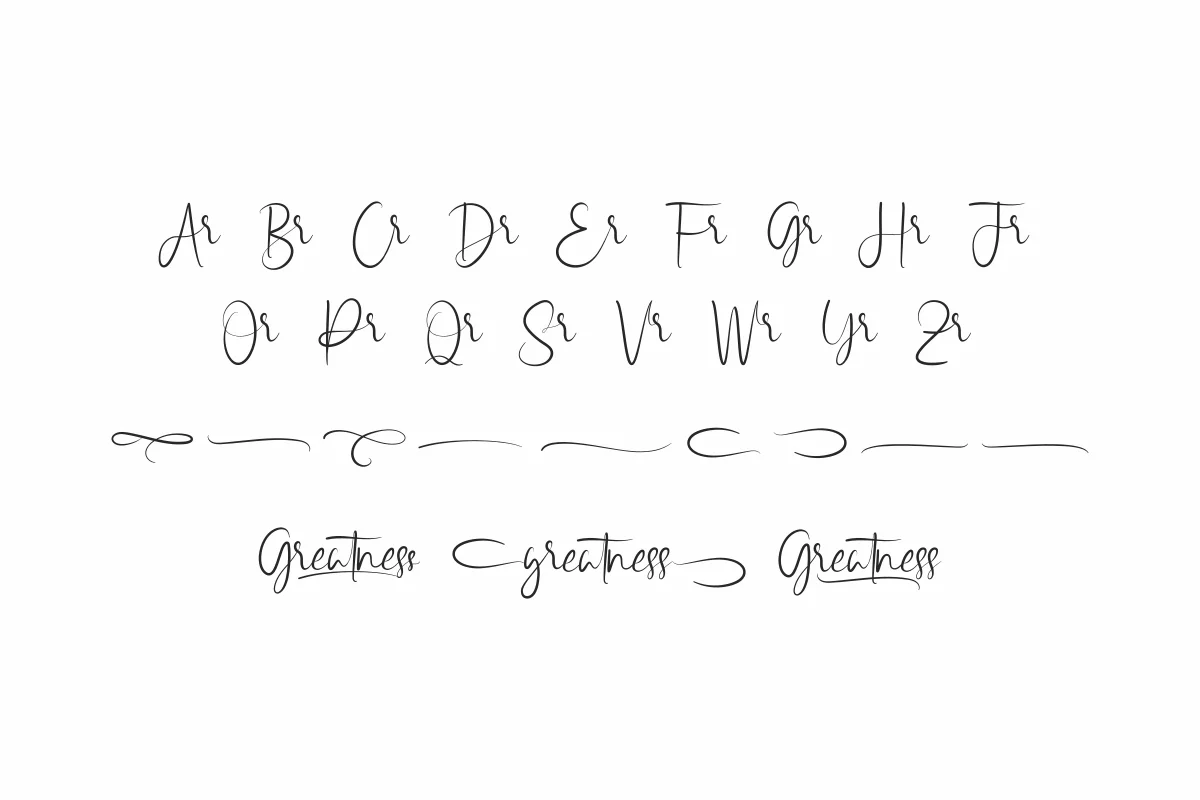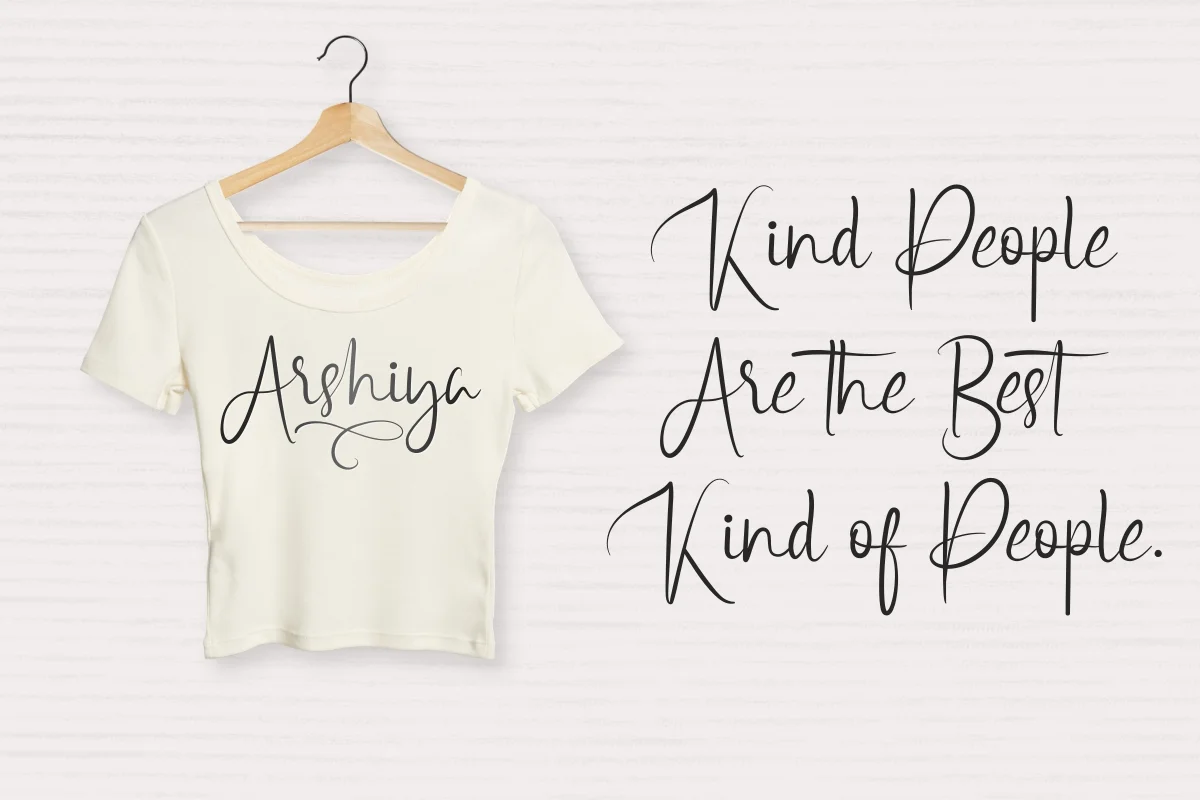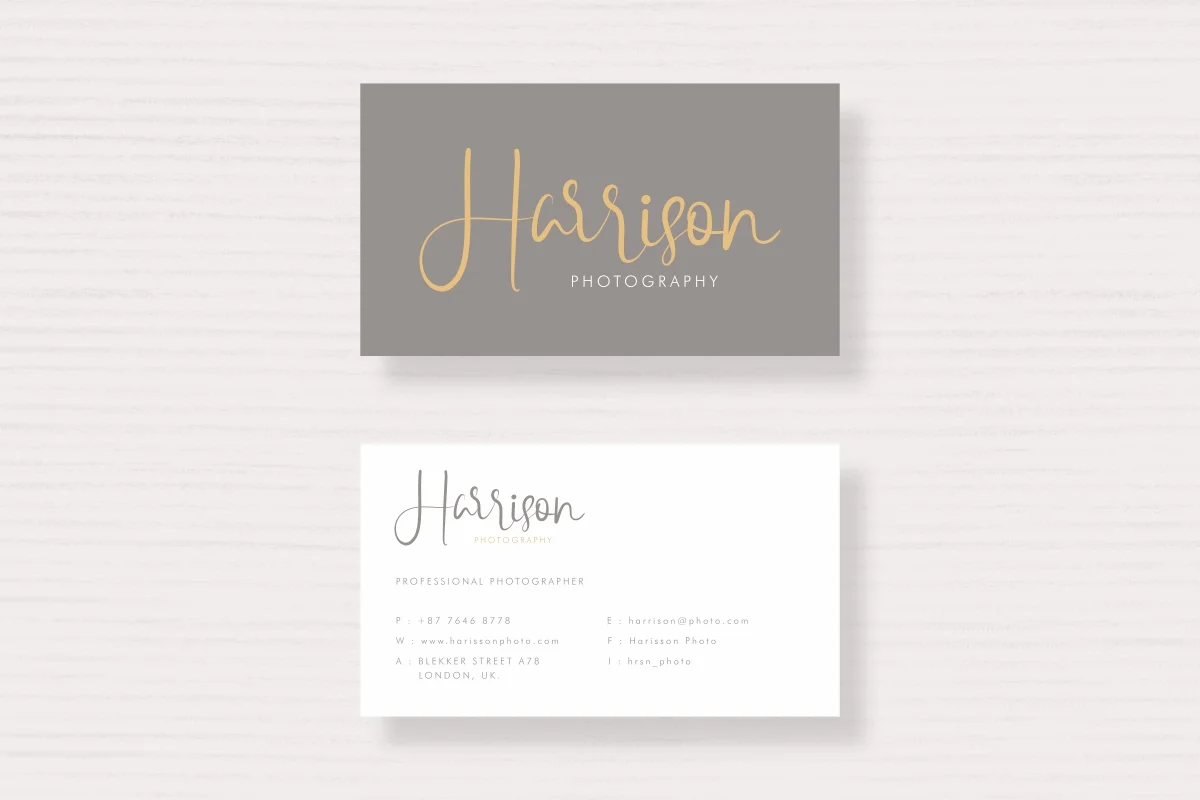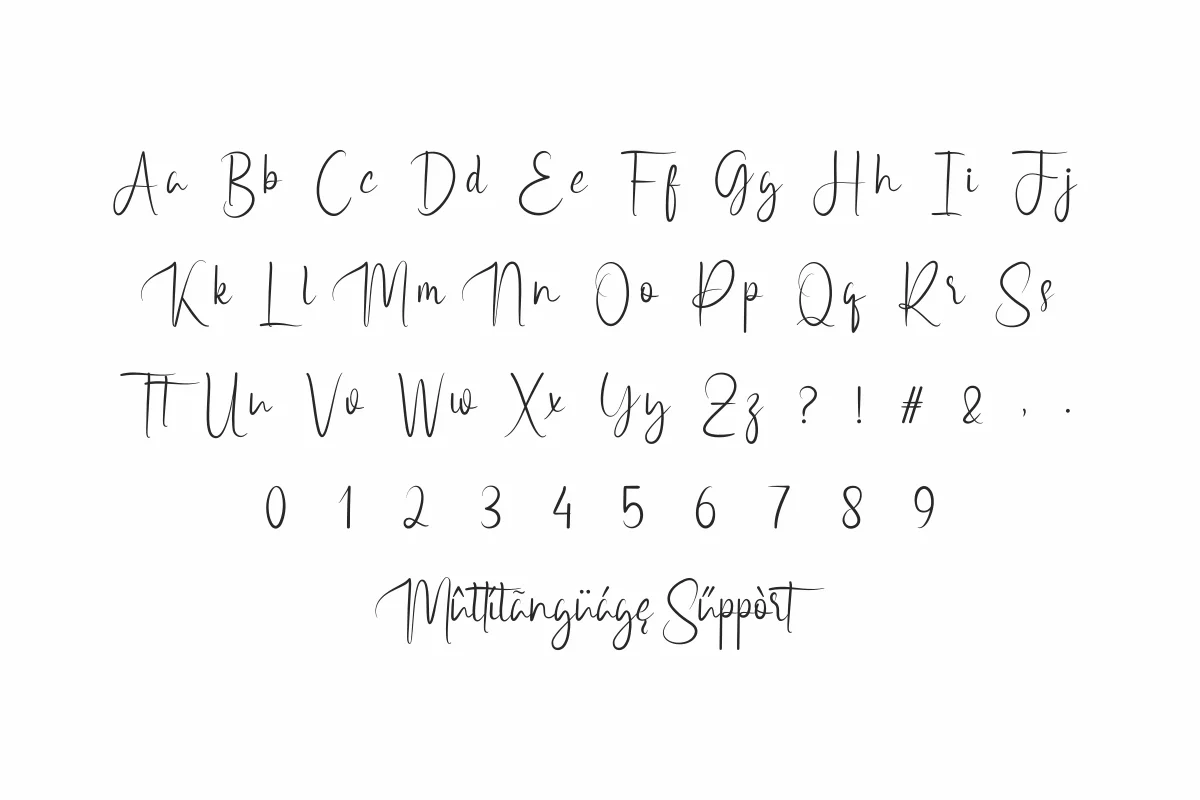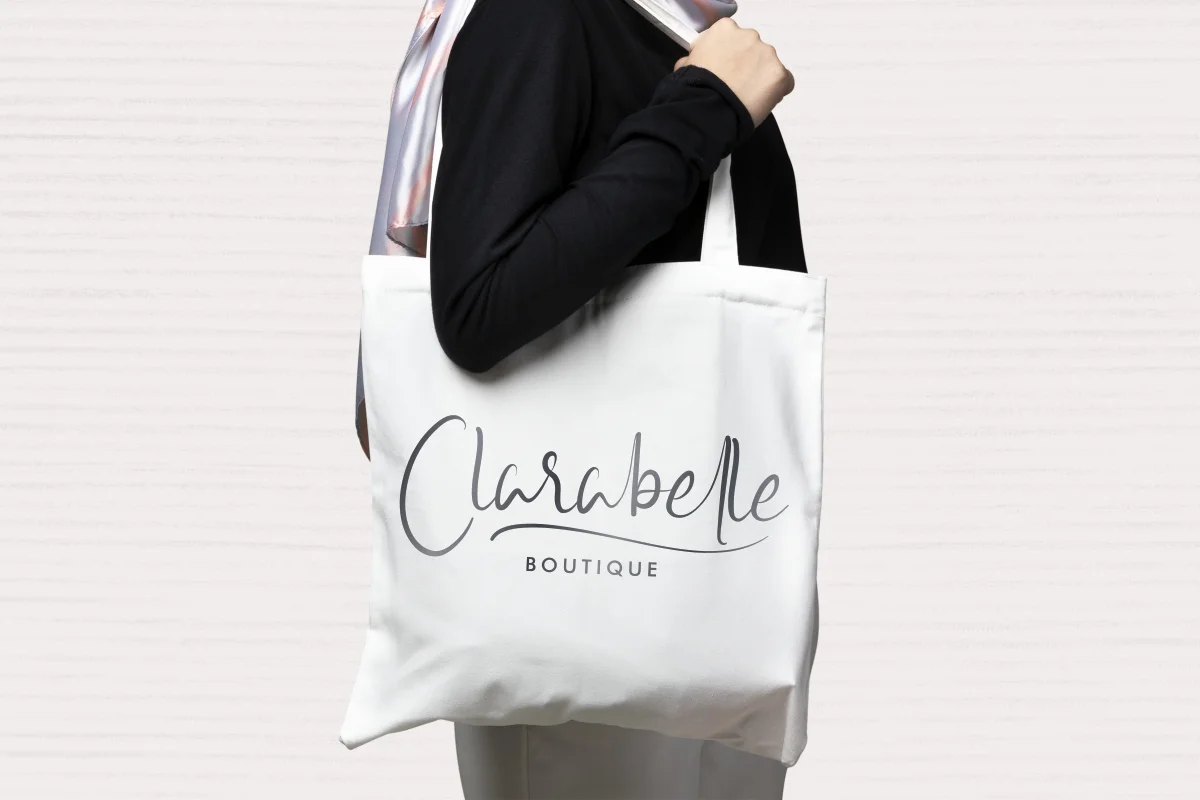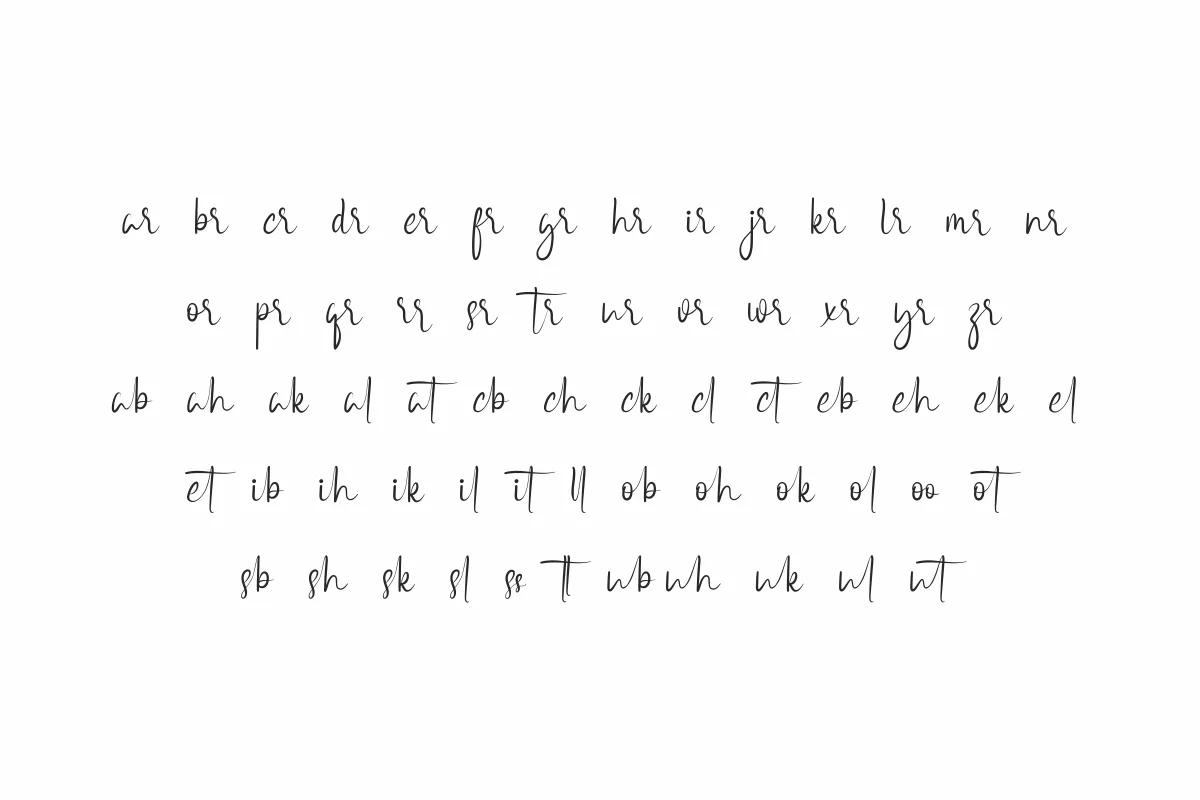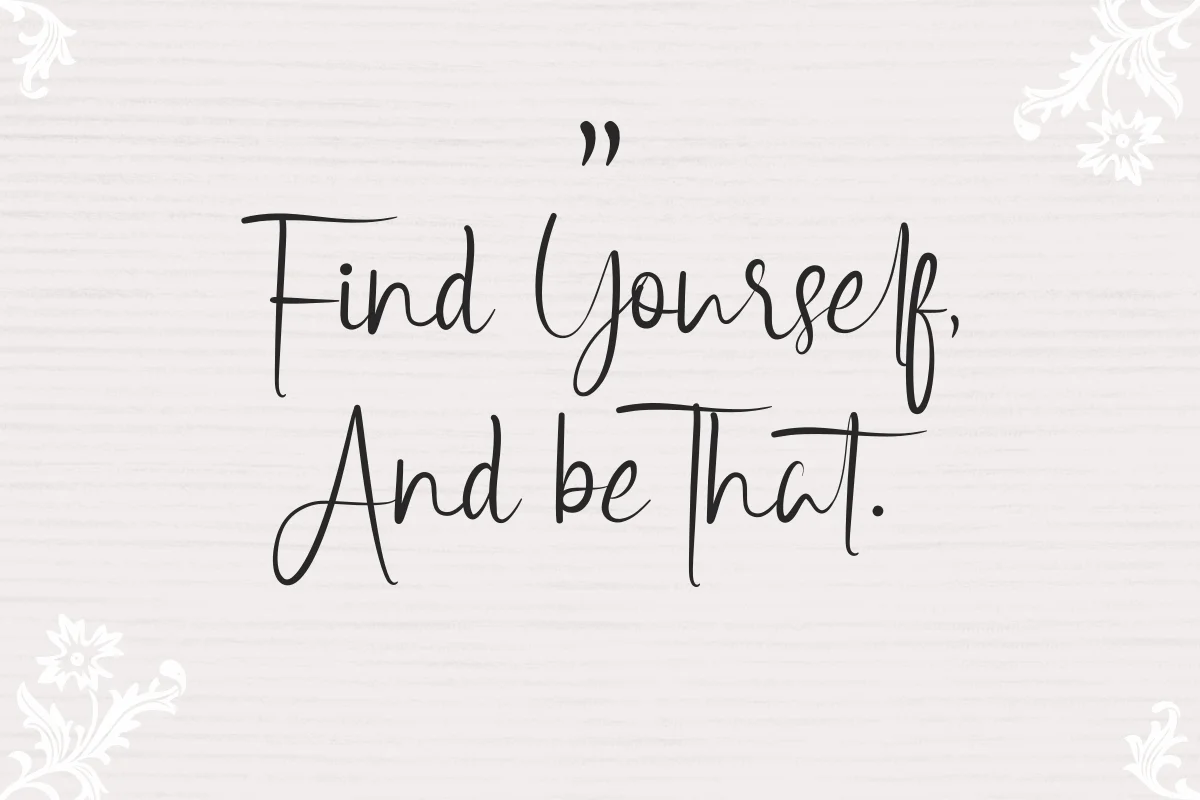
Greatness Font is a handwritting calligraphy font by NihStudio since 2020. It is a handwritten brush font, Made in Indonesia. Download Now
Greatness is a calligraphy hand lettering font. Originally made in 2020 by NihStudio Font Designer : Widiyanti and Suci. On the package you will get :
Handcrafted here in our Studio , Indonesia. Greatness will be awesome for any projects (require extended license) including : branding, logo, stationery, business card, signage, flyer, brochure etc. The theme style of the font is elegant, luxury, glamour, gold, vintage, stylish, sophisticated and classic brush style. The font will be match for this typeface: wedding, events, real estate, architect, law firm, florist, gardening, makeup artist, travel, hotel, musician etc